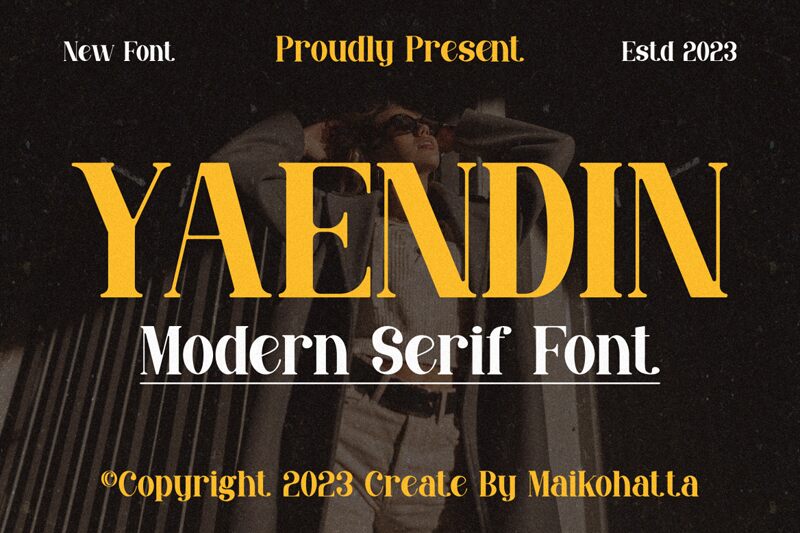
Yaendin
Yaendin font by Gilang Ternadho is a condensed, free serif font dripping with elegance and subtle sophistication. It combines a contemporary interpretation of classic serif typefaces with dynamic alternates for refined customization. Its influence is heavily derived from the appeal of high-end brands we love and follow to this day.
Gorgeously romantic, Yaendin is absolutely perfect for your brand logo design, packaging design, business cards and other stationery projects. Additionally use it in typography on invites and greeting cards, social media posts, product labels & tags … The list doesn’t end here; explore more creative designs with this free font!